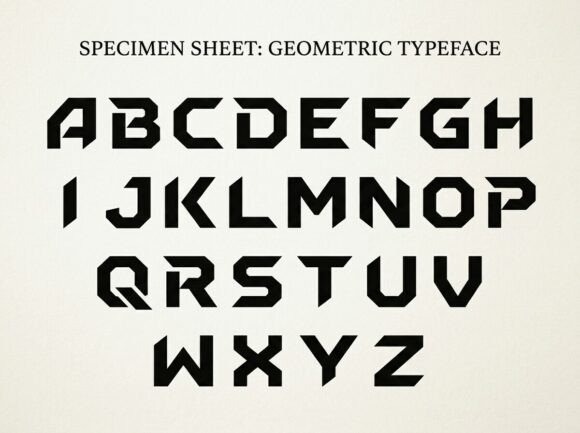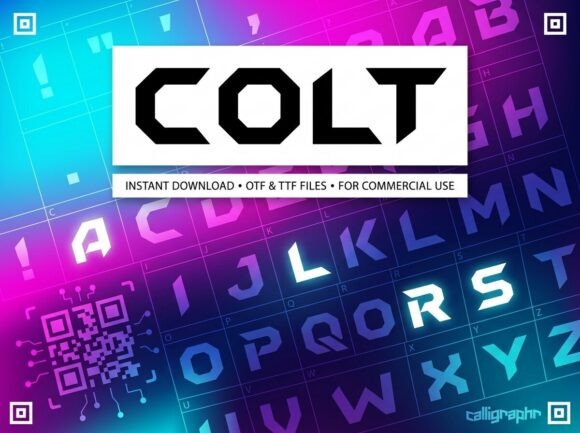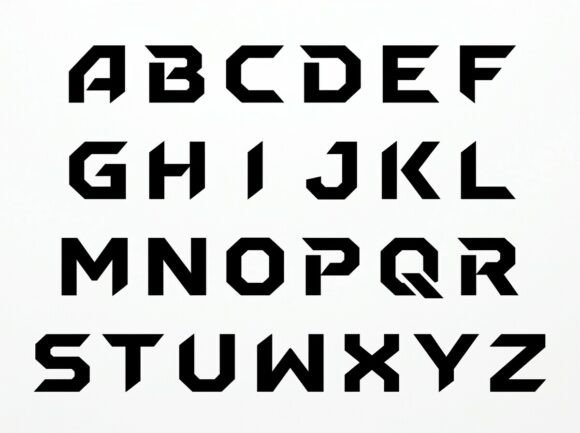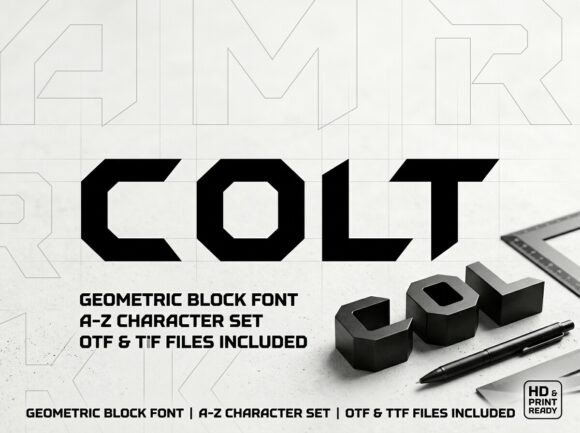
Introducing Colt Font: The Ultimate Decorative Display Font for Creators
Are you tired of using the same old fonts for your creative projects? Look no further than Colt Font, a stunning decorative display font designed to grab attention and make a statement. With its unique artistic elements and strong visual personality, Colt Font is perfect for creators who want to break away from the ordinary and add a touch of elegance to their work.
What Makes Colt Font Special?
Colt Font is a versatile font that is perfect for a variety of creative projects, including bold headlines, artistic logos, and creative packaging. Its professional and polished finish ensures that your work looks high-end and sophisticated, making it ideal for designers, crafters, and entrepreneurs who want to make a lasting impression.
Key Features of Colt Font
- Unique Artistic Elements: Colt Font features unique artistic elements that set it apart from other fonts. Its intricate details and elegant lines make it a true work of art.
- Strong Visual Personality: This font has a strong visual personality that demands attention. Its bold and eye-catching design makes it perfect for headlines, logos, and other creative projects.
- Versatile: Colt Font is versatile enough for use in a variety of creative projects, from bold headlines and artistic logos to creative packaging and more.
- Professional and Polished Finish: This font has a professional and polished finish that ensures your work looks high-end and sophisticated.
IMPORTANT NOTE BEFORE PURCHASE: Colt Font is an ALL-CAPS (Uppercase Only) display typeface. It does not include lowercase letters. It is specifically designed for high-impact headlines, logos, and decorative initials where every letter is a work of art.
Why Choose Colt Font?
There are many reasons why Colt Font is the perfect choice for creators. Here are just a few:
- Add a Touch of Elegance: Colt Font adds a touch of elegance and sophistication to any creative project.
- Stand Out from the Crowd: With its unique artistic elements and strong visual personality, Colt Font helps you stand out from the crowd and make a lasting impression.
- Perfect for Creative Projects: This font is perfect for a variety of creative projects, including bold headlines, artistic logos, and creative packaging.
- Use it for Headlines: Colt Font is perfect for bold headlines and titles. Use it to grab attention and make a statement.
- Use it for Logos: This font is also great for artistic logos and branding. Use it to add a touch of elegance and sophistication to your logo.
- Use it for Packaging: Colt Font is perfect for creative packaging. Use it to add a touch of personality and whimsy to your packaging.